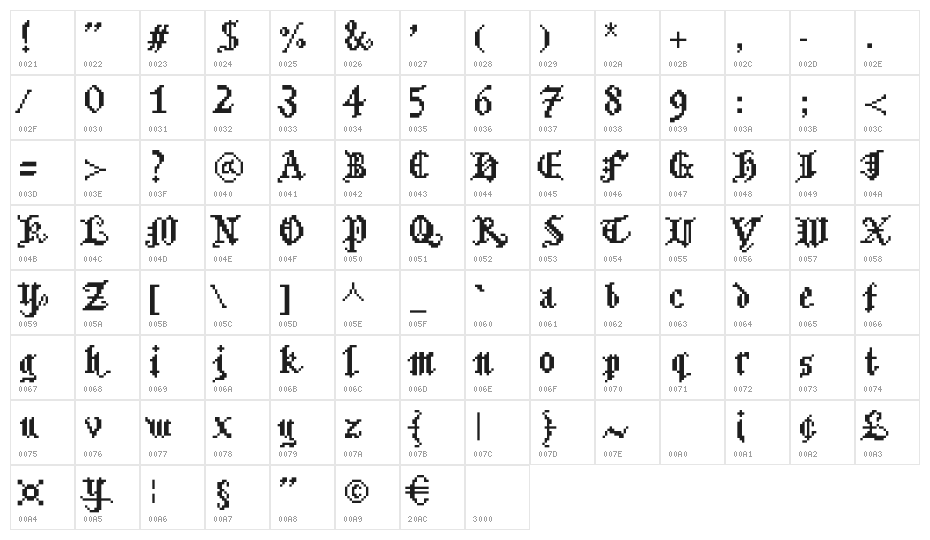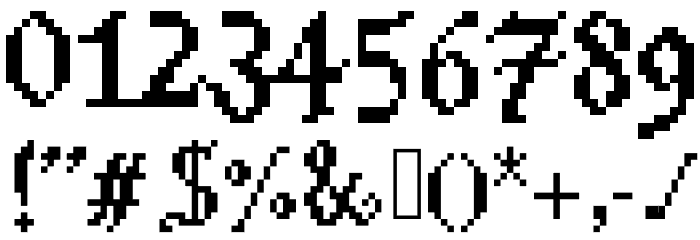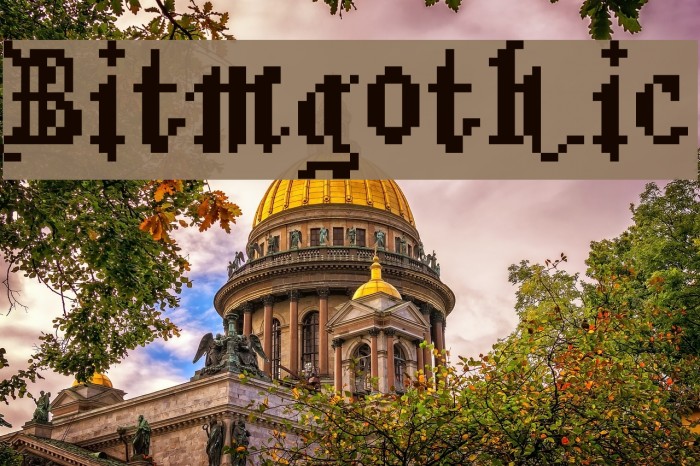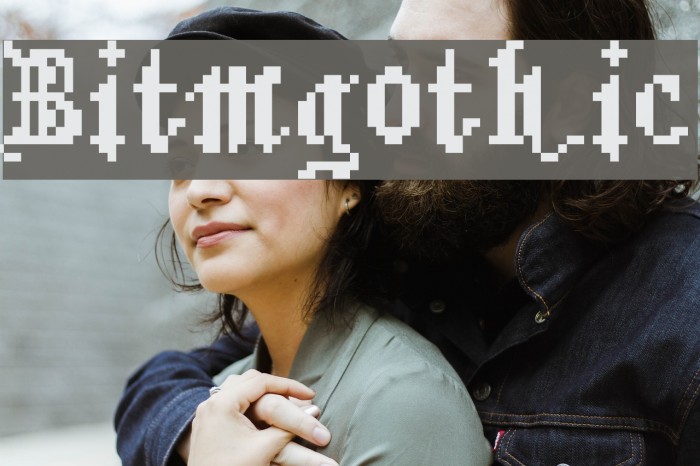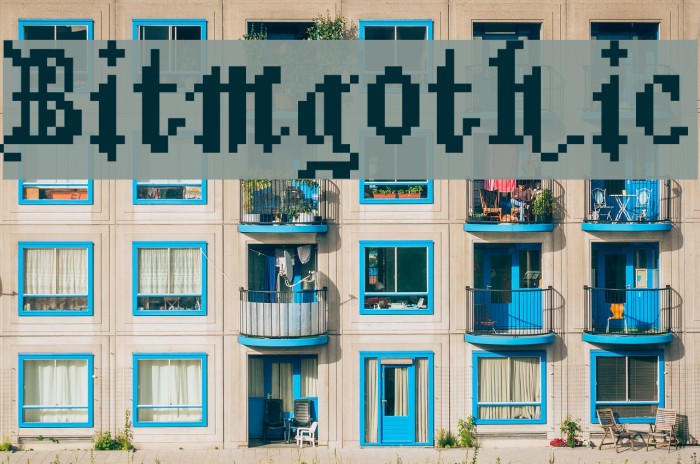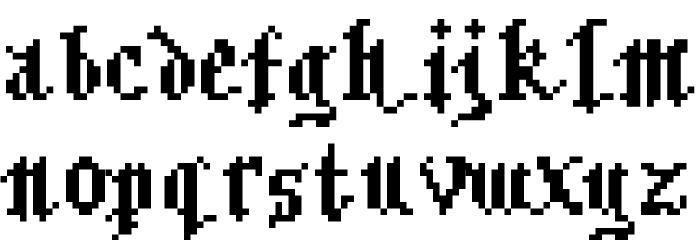
Bitmgothic Font
Bitmgothic Description
This font is a pixelated blackletter style, reminiscent of medieval script with a modern twist. The characters are bold and angular, with sharp edges and a distinct gothic influence. The uppercase letters are ornate, featuring intricate details that give them a historical feel. Lowercase letters maintain the same gothic aesthetic, with a consistent weight and style throughout. Numbers and special characters follow suit, ensuring a cohesive look across all glyphs. The pixelated nature adds a unique, retro digital vibe, making it stand out in contemporary design.
| Proposed Projects | Ideal for video game design, retro-themed posters, or digital art projects that require a medieval or gothic touch. |